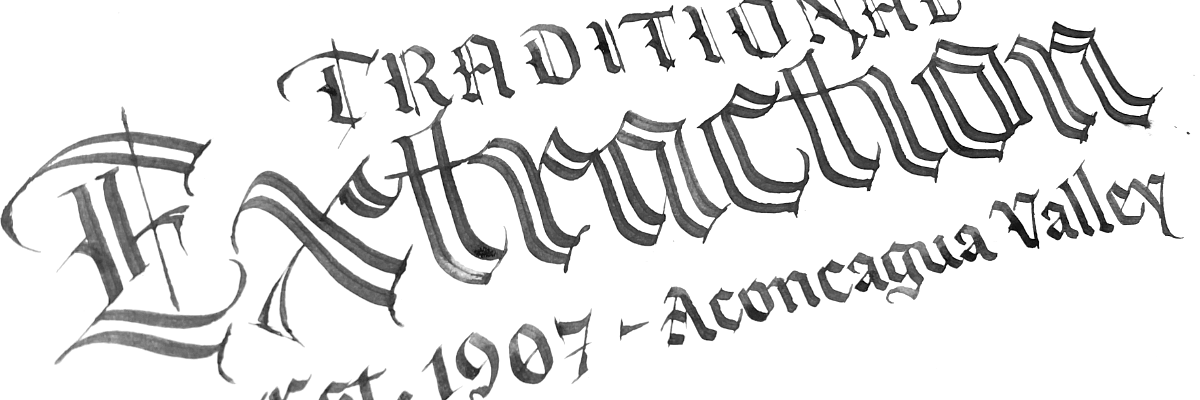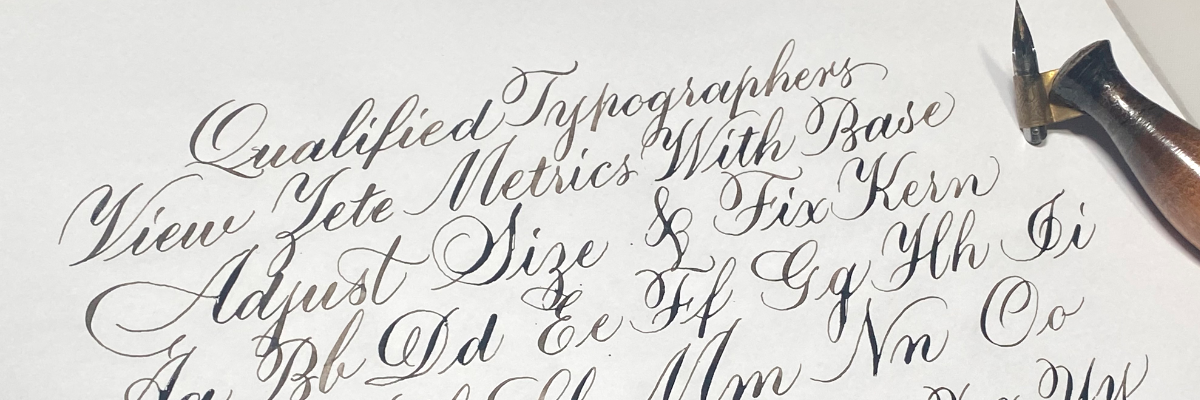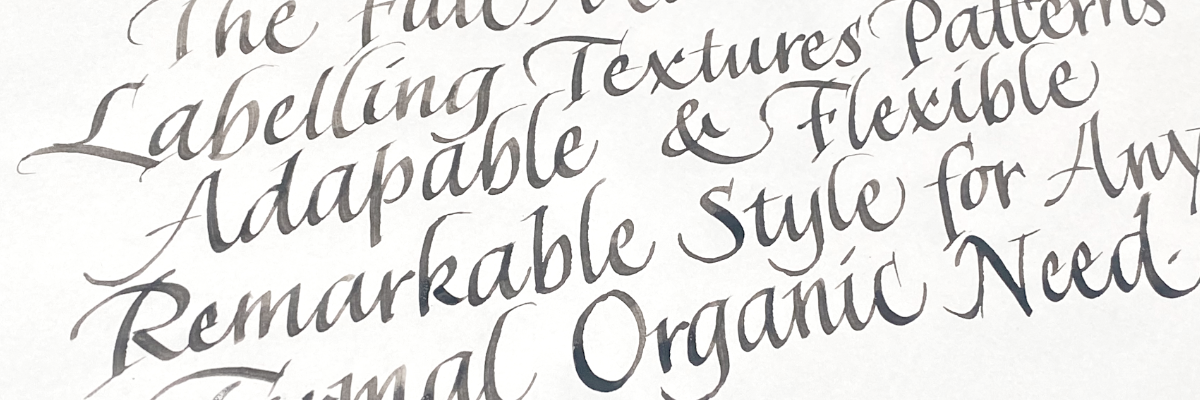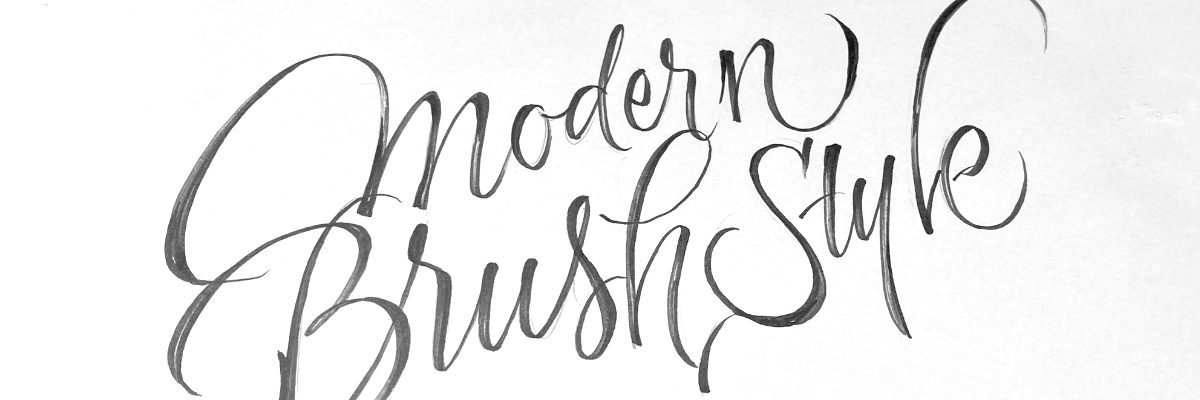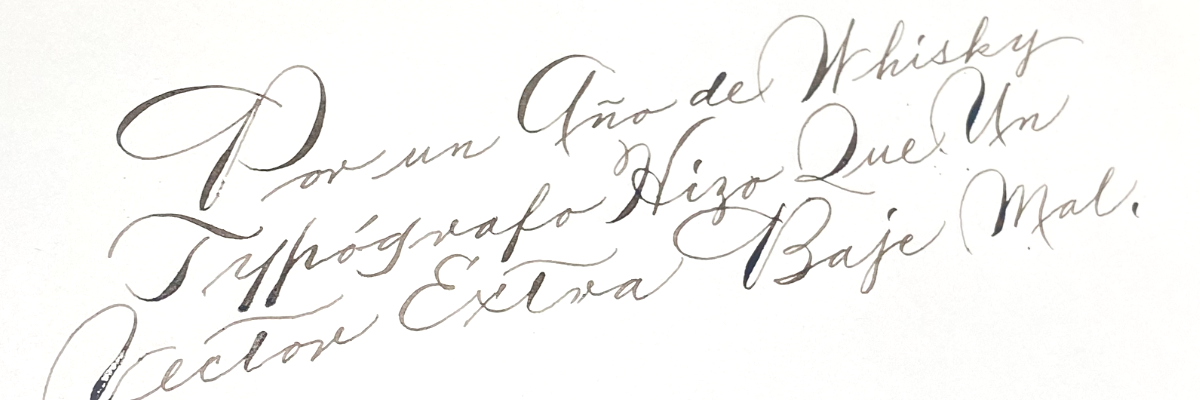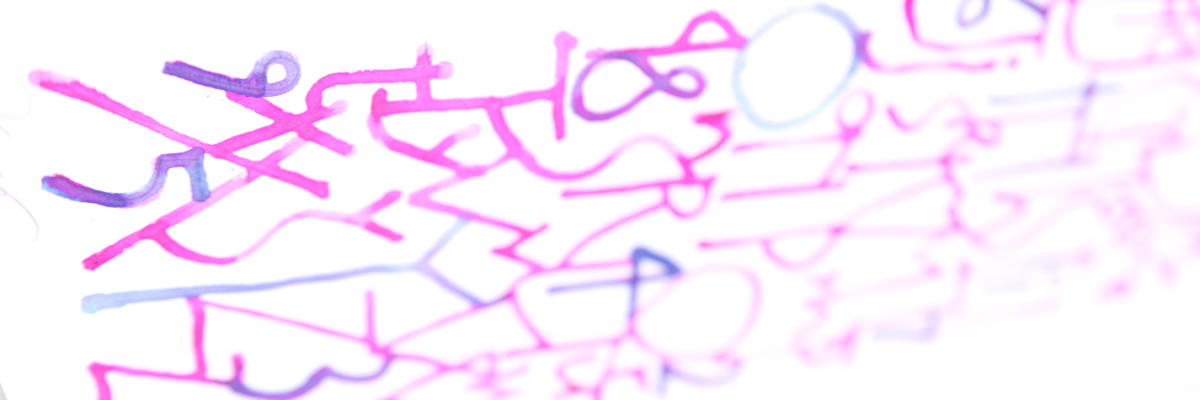
Calligraphy Design
Transform your vision into elegant handwritten art. Our calligraphy services blend traditional techniques with modern aesthetics.
Featured Calligraphy Styles
Copperplate
Classic formal style with elegant flourishes and precise letterforms.
Modern Brush
Contemporary style with flowing strokes and dynamic energy.
Gothic
Medieval-inspired with bold geometric letterforms.
Italic
Graceful slanted style with fluid, rhythmic letterforms.
Spencerian
American cursive with elegant loops and decorative elements.
Watercolor
Artistic blend of calligraphy with watercolor painting techniques.